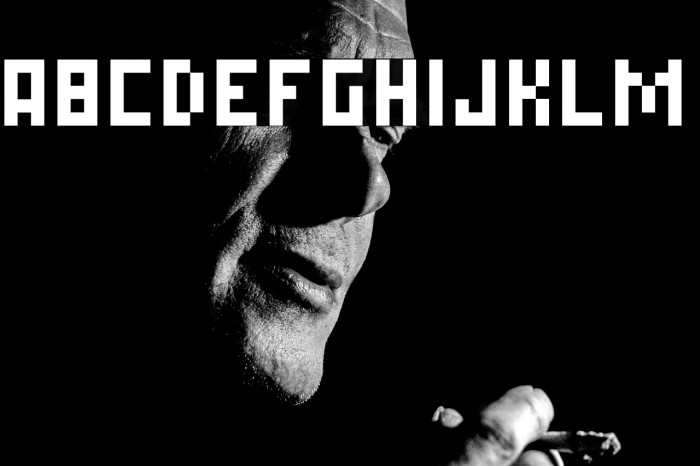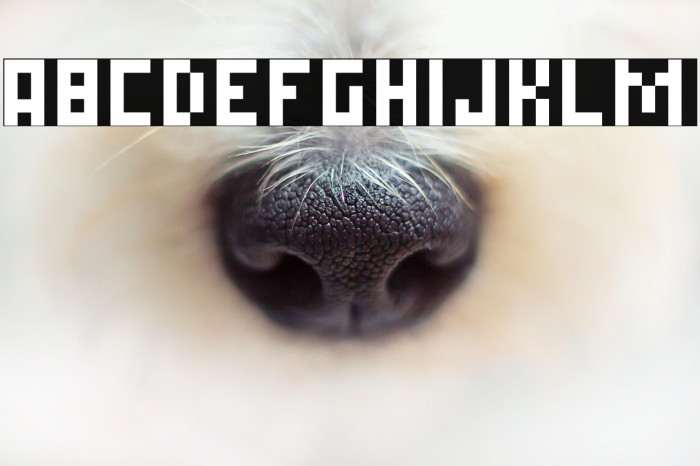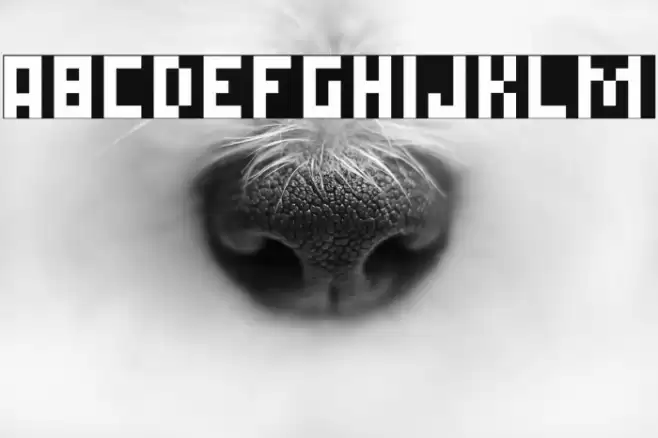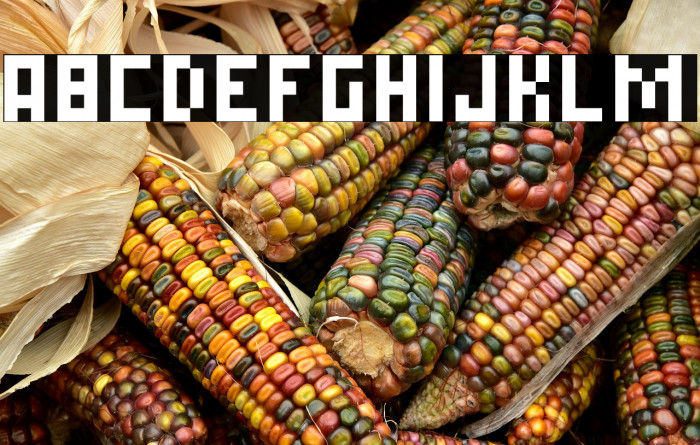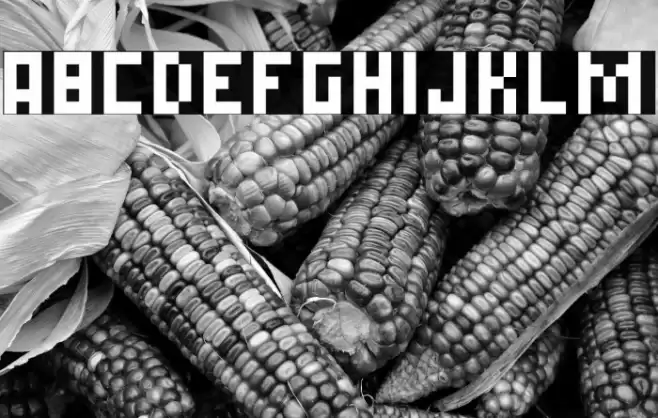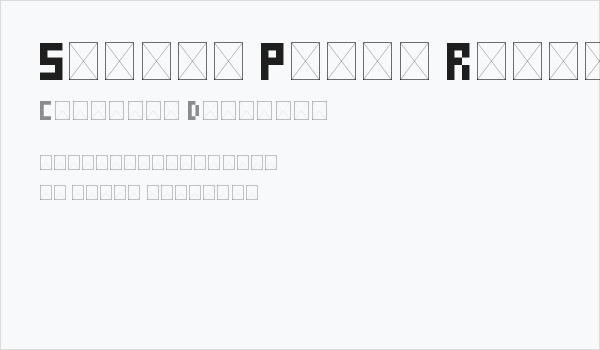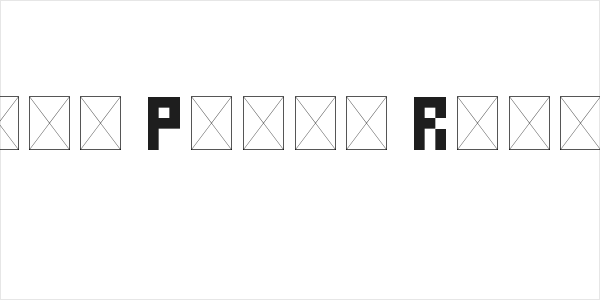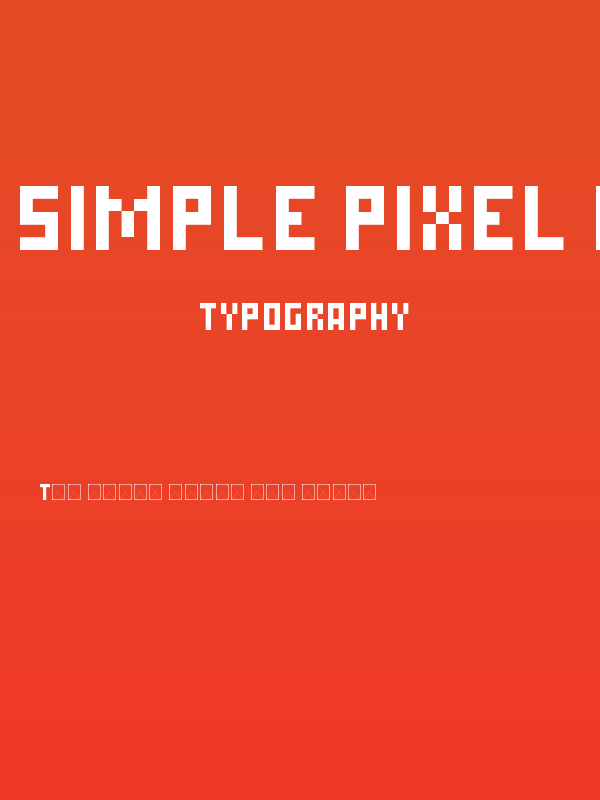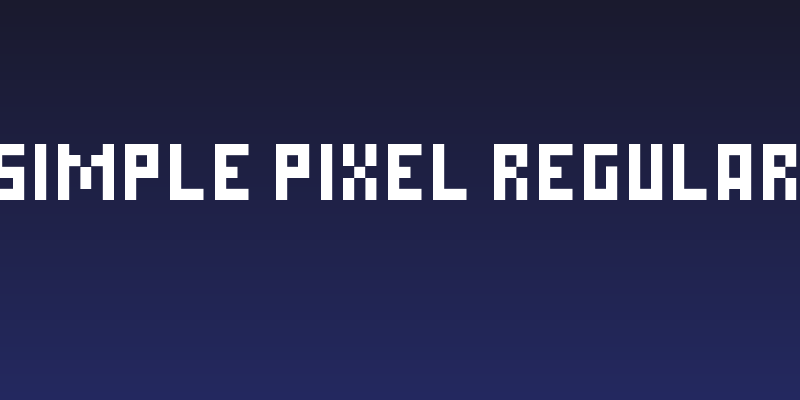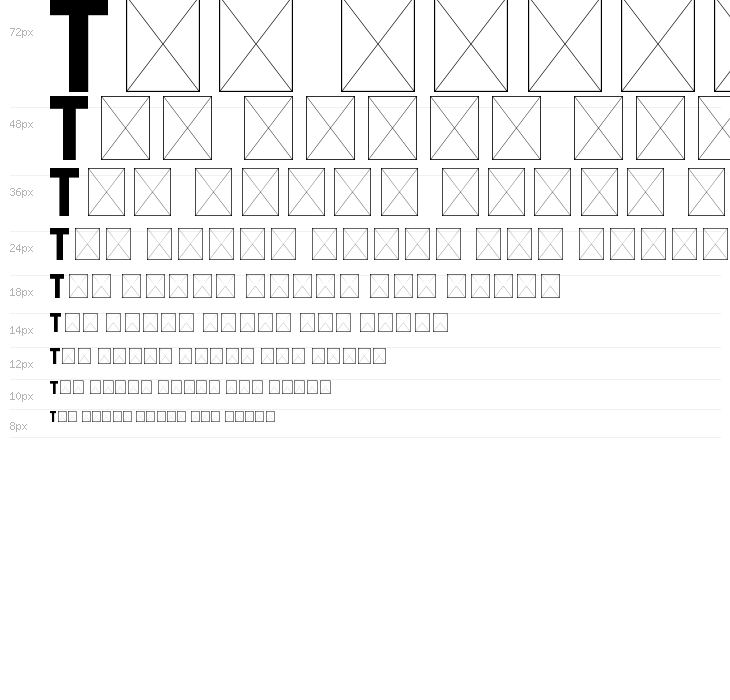
Simple Pixel Regular Font
This font features a distinct pixelated style reminiscent of early digital typography and retro video games. Each character is composed of uniform square blocks, giving it a rigid and geometric appearance. The uppercase and lowercase letters maintain a consistent height, contributing to a monospaced feel, although the font is not strictly monospaced. The numerals and special characters follow the same pixelated design, ensuring a cohesive look across all glyphs. Its simplicity and blocky nature make it highly legible at small sizes, while also providing a nostalgic aesthetic that is both playful and functional.
| Use Case | Headlines, Logos, Digital Art |
| Proposed Projects | Ideal for retro video game graphics, digital art projects, and any design requiring a nostalgic or tech-inspired look. |